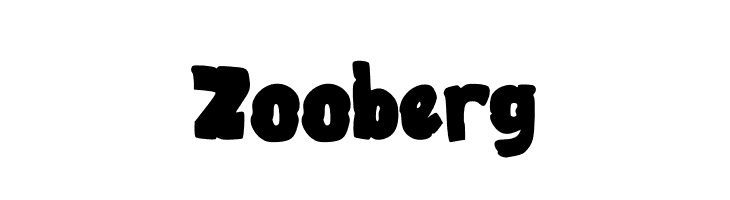
A playful, handwritten font with bold, dynamic strokes and a casual style.
A playful, handwritten font with bold, dynamic strokes and an informal style.
A bold, playful font with quirky, rounded characters and a whimsical style.
A bold, playful font with thick, rounded strokes and a cartoonish style.
A bold, playful font with a hand-drawn, graffiti-like style.